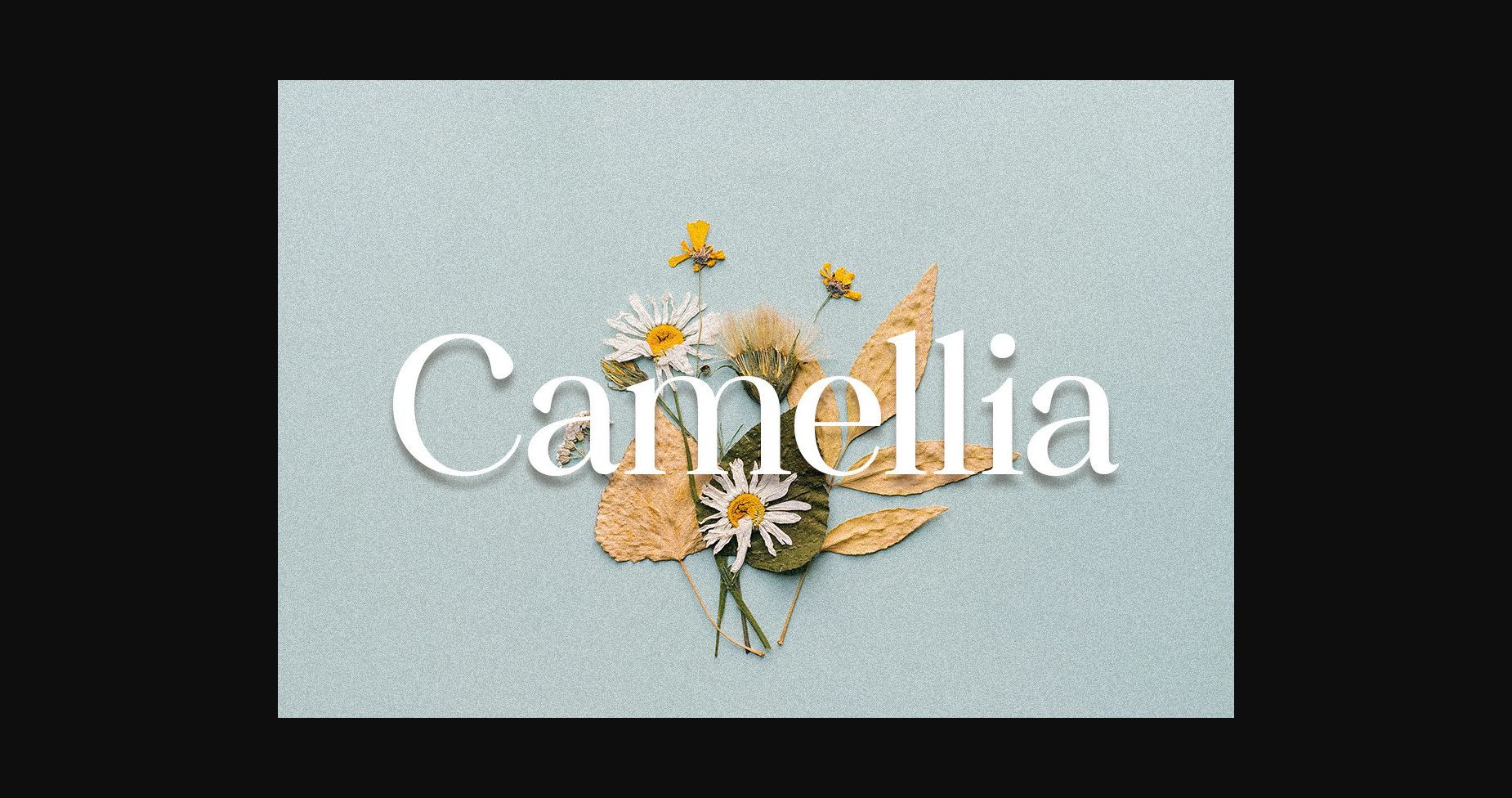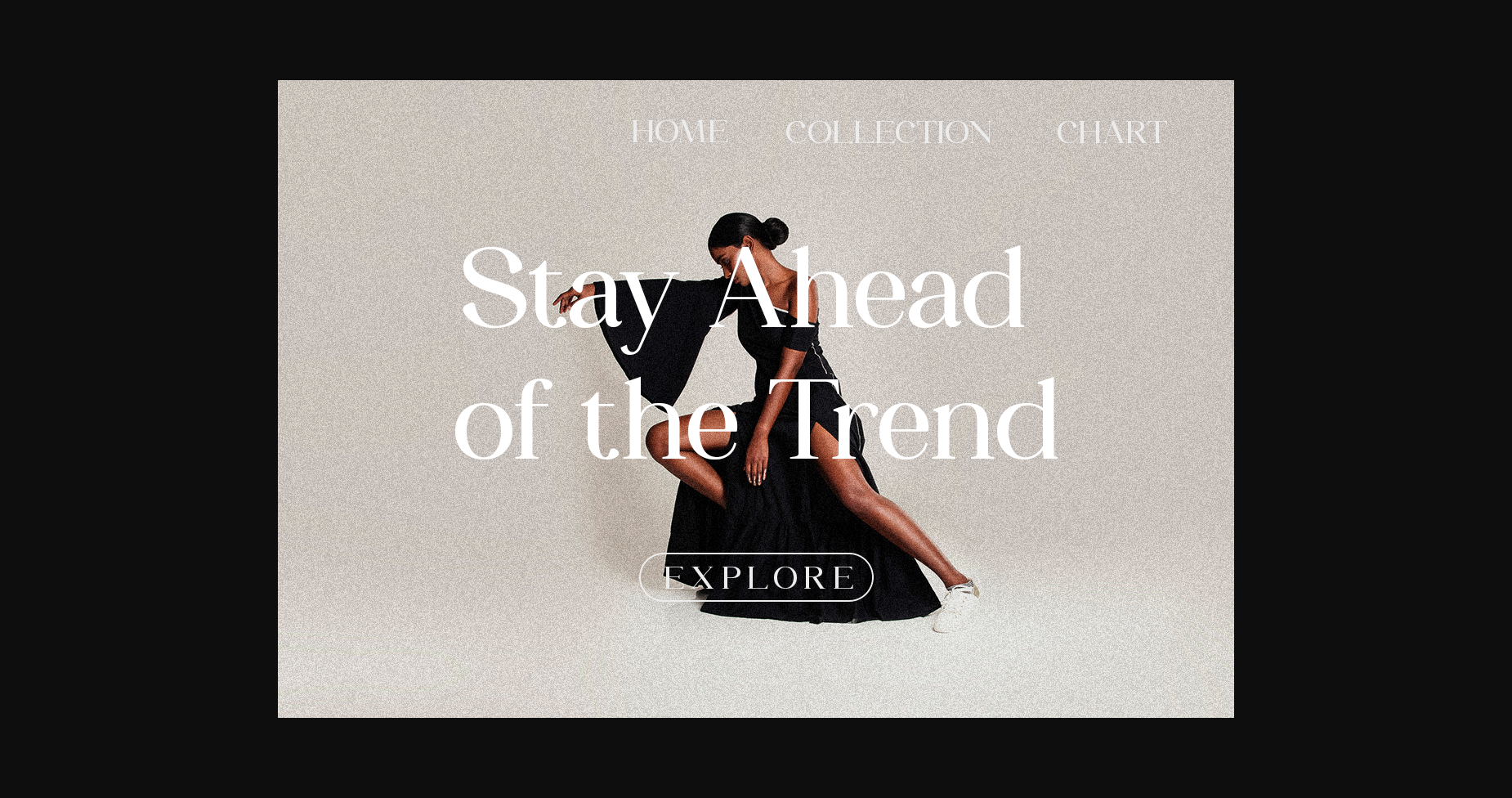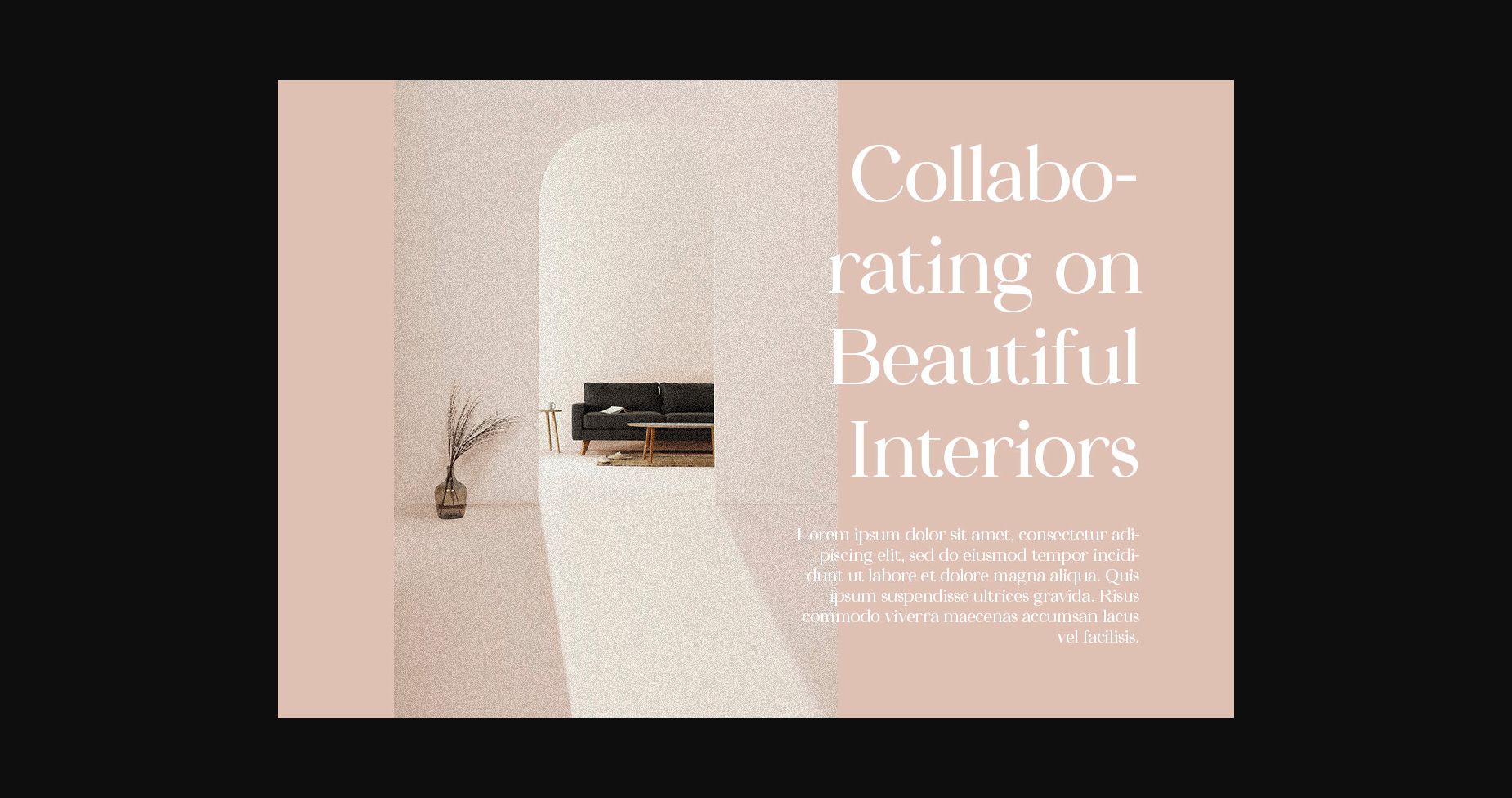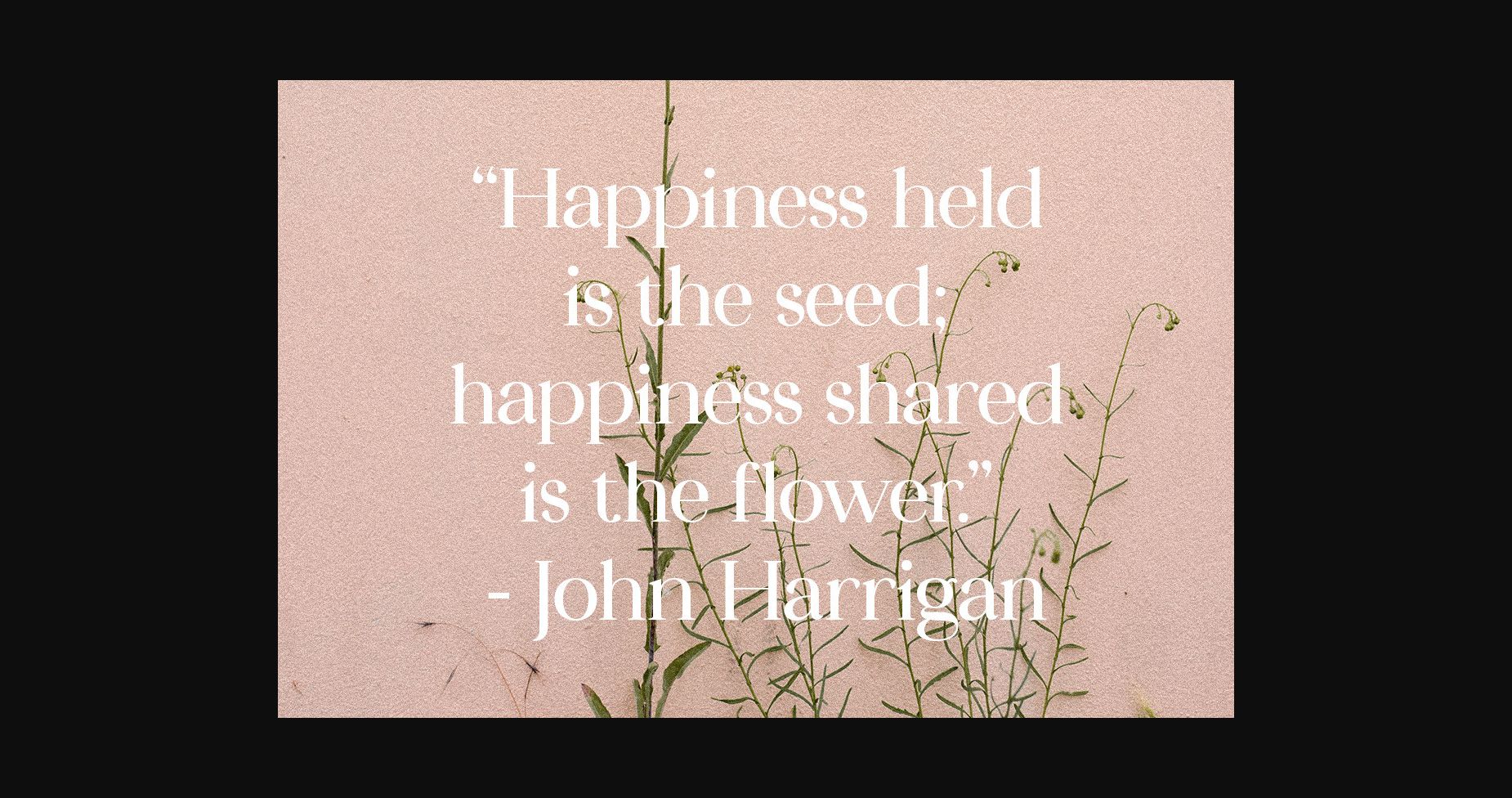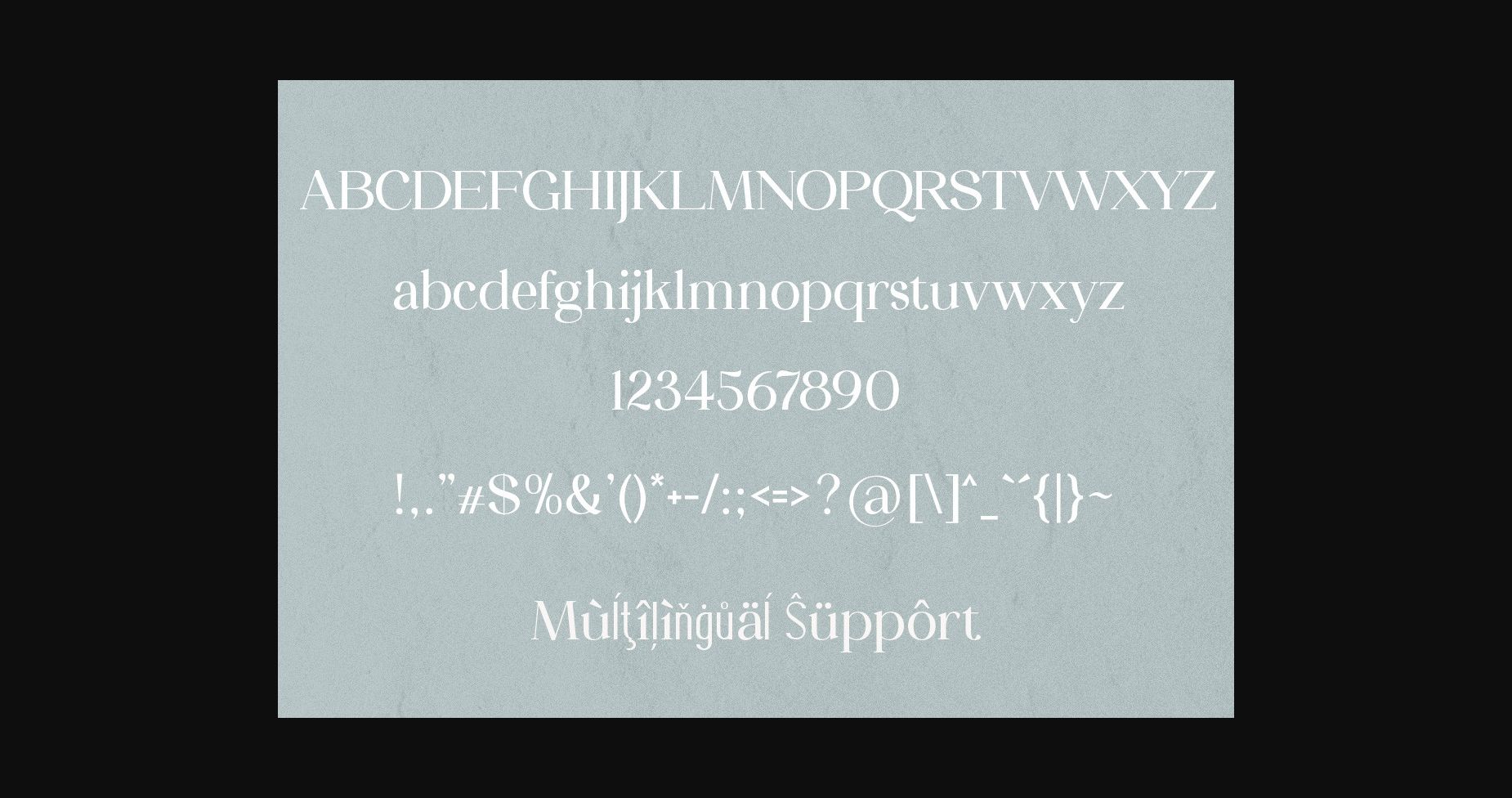
Camellia is a modern typeface that boasts clean lines dan sharp edges. An extremely versatile font, Camellia is perfect for logos, weddings, invitations, quotes, advertisements, print, magazines, and more.